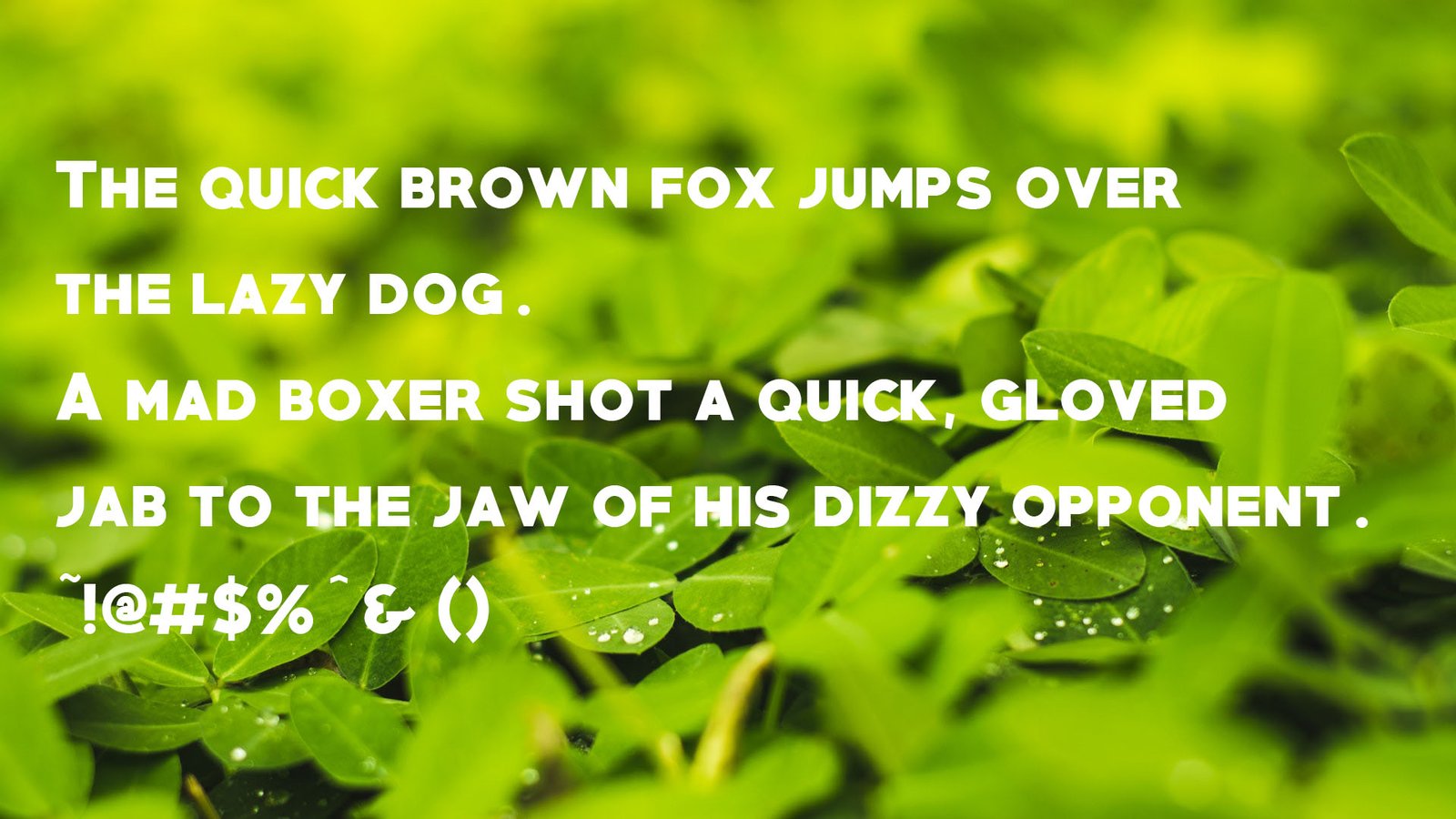
Today we are providing you with the amazing typeface that is known as Primetime Font. This font is published under the banner of Herofonts and the released year of this font is 2014. This beautiful font is designed by Guilhem Greco. This typeface is a member of the Sans Serif font family.
This font is a clever and ornamental typeface family that comes with 3 weights including the Regular, Bold, and heavy. Each weight of this font has its own italic style and gives a special touch to your designs. Benton Sans Extra Comp Black Font is the best pairing option available for this font.